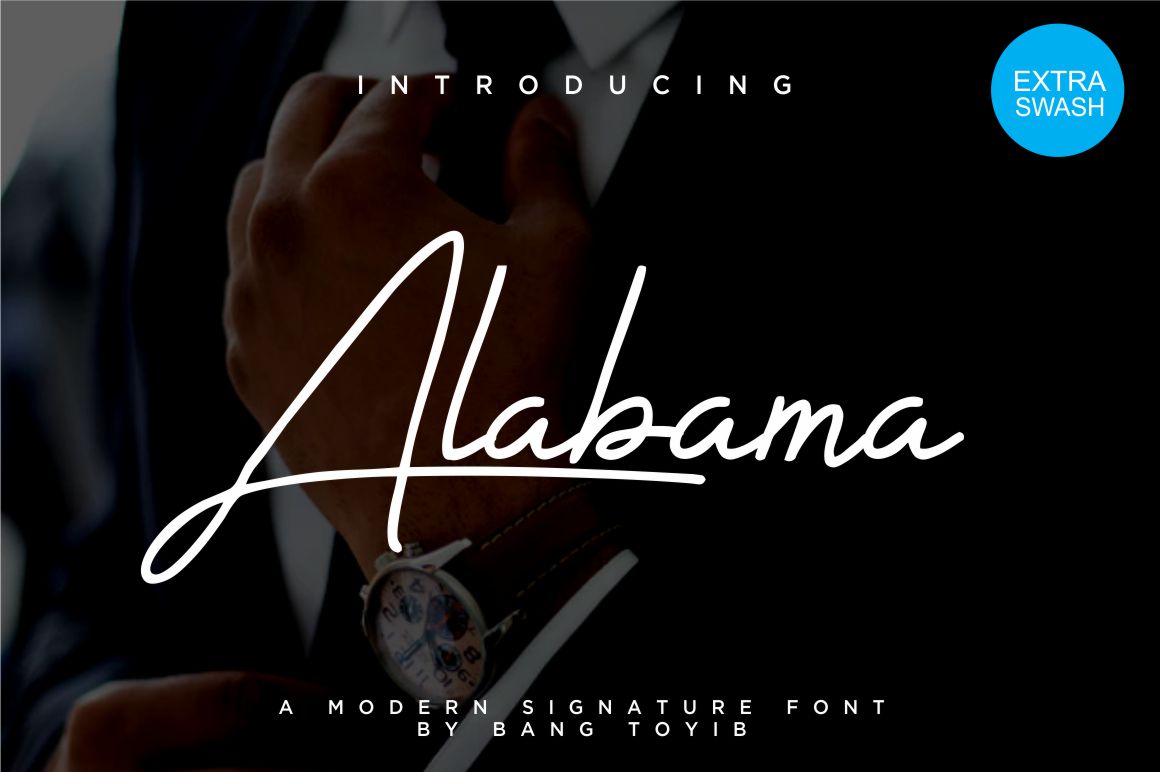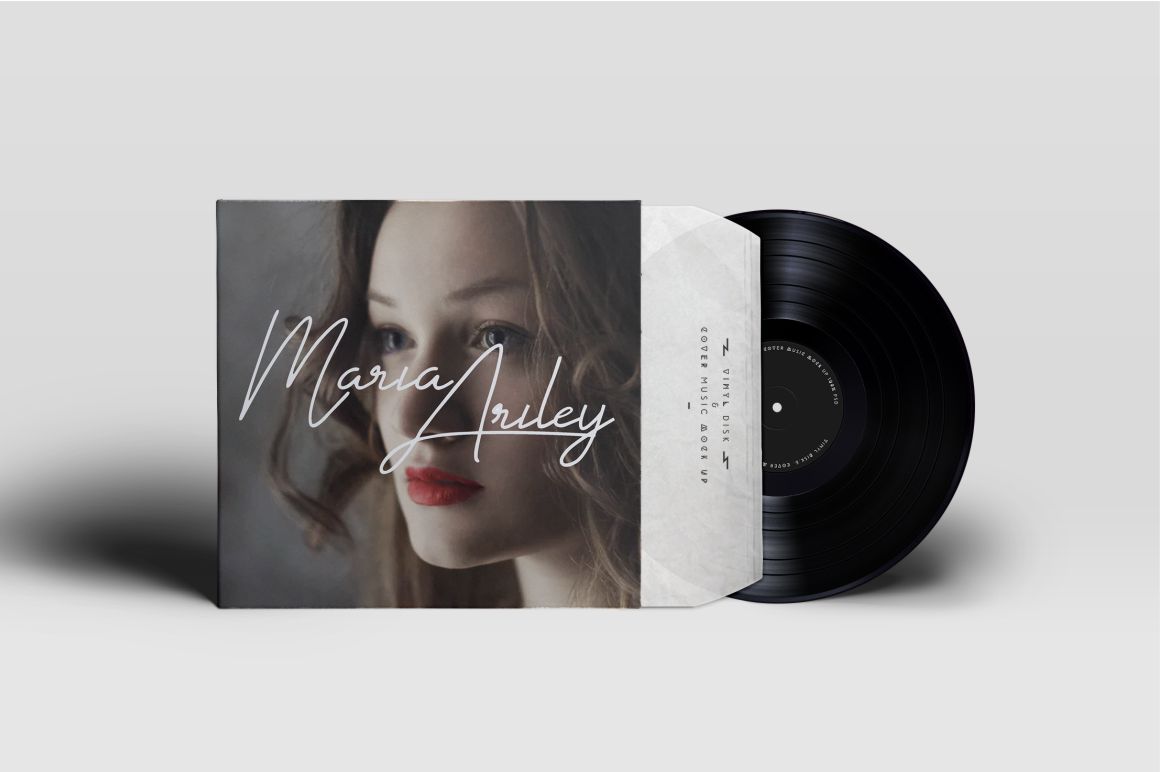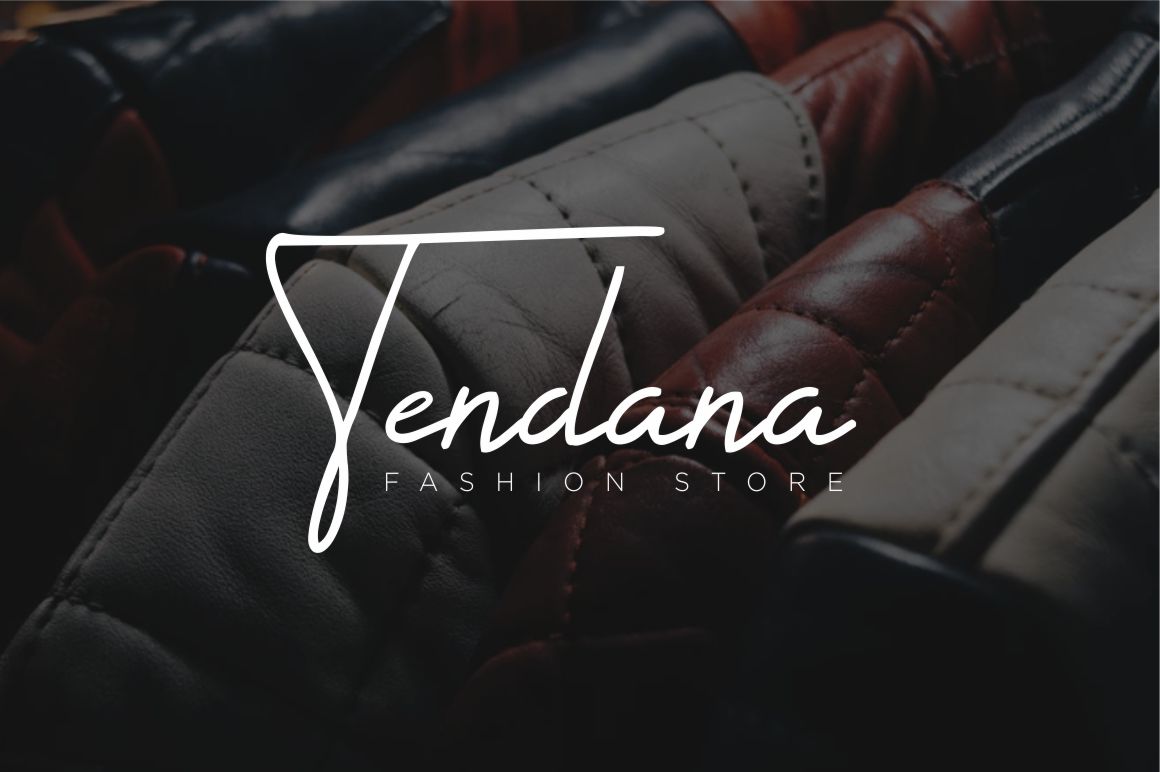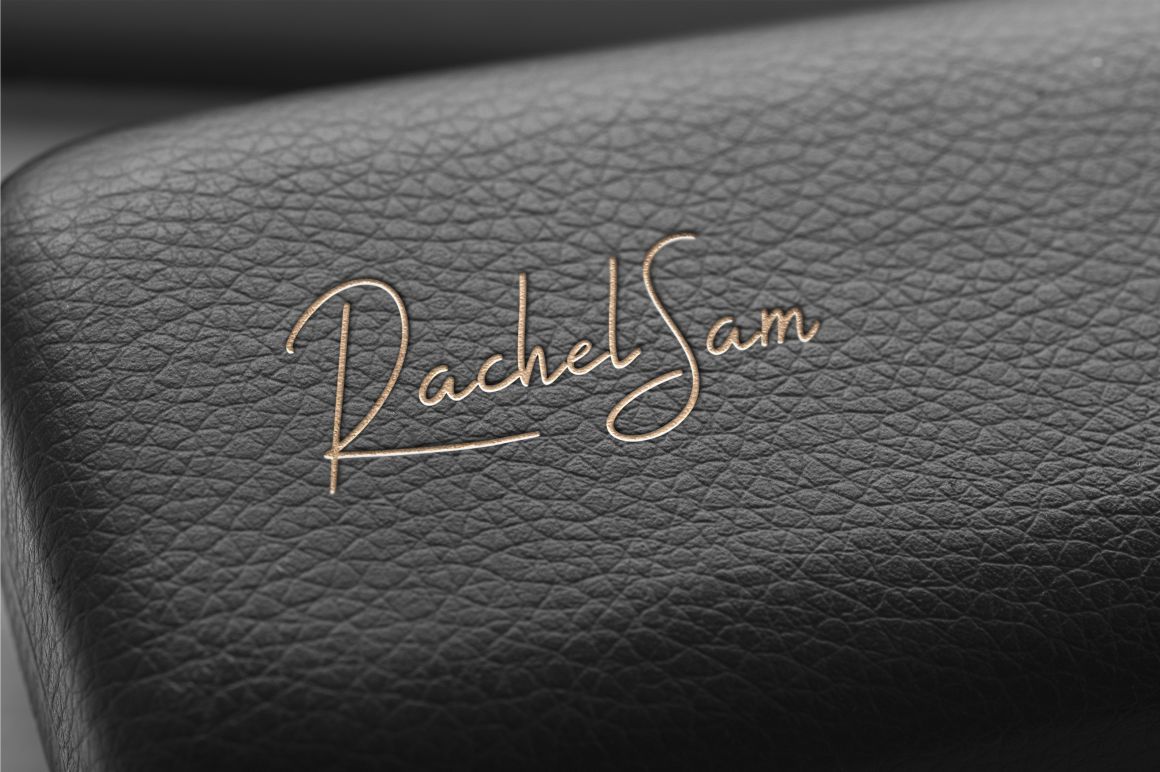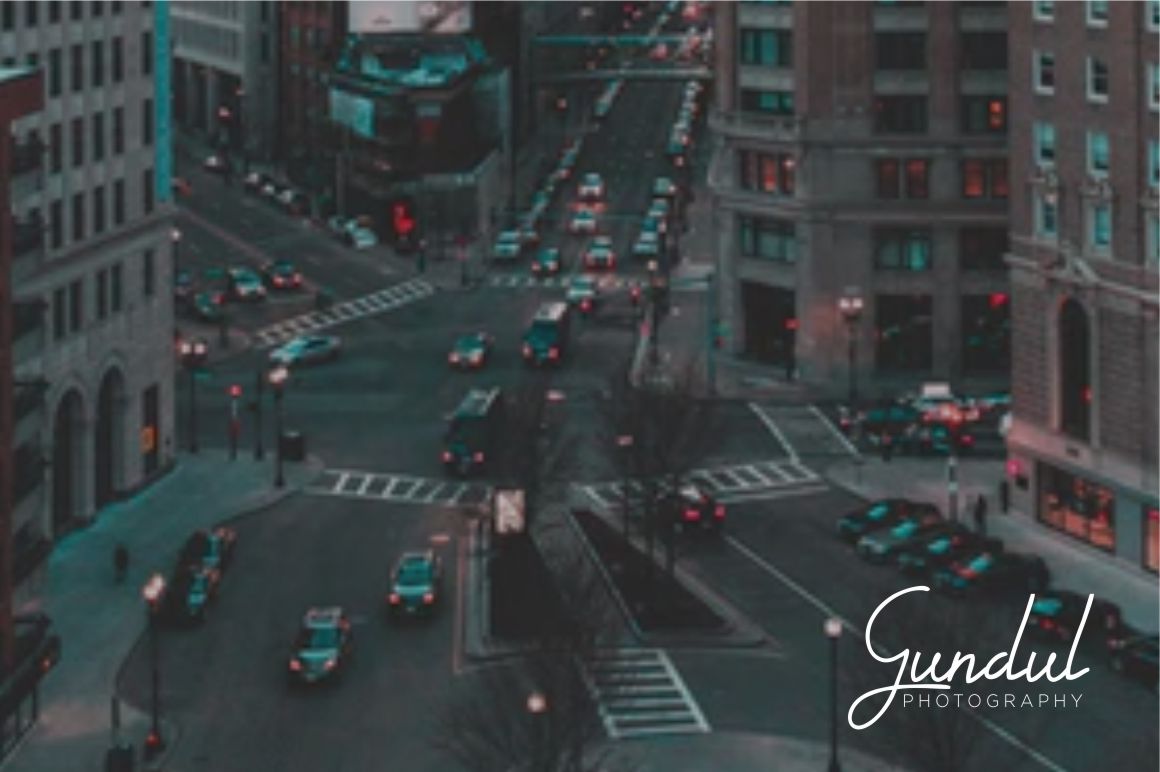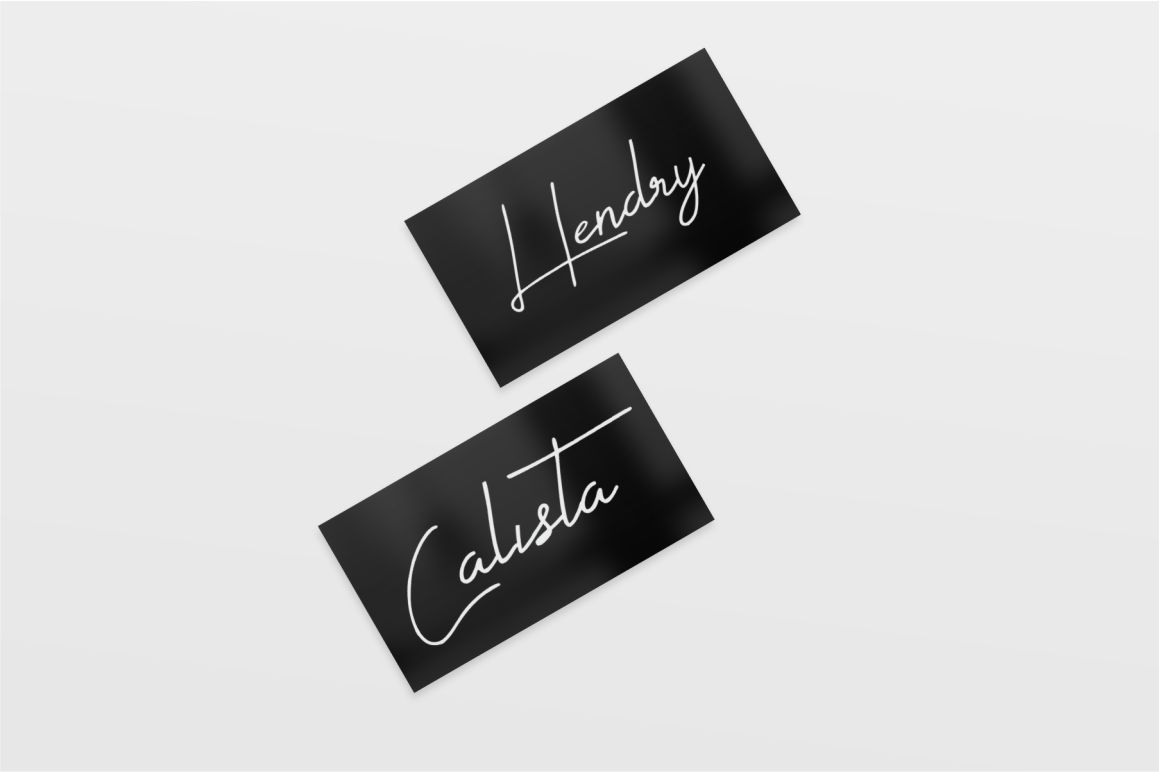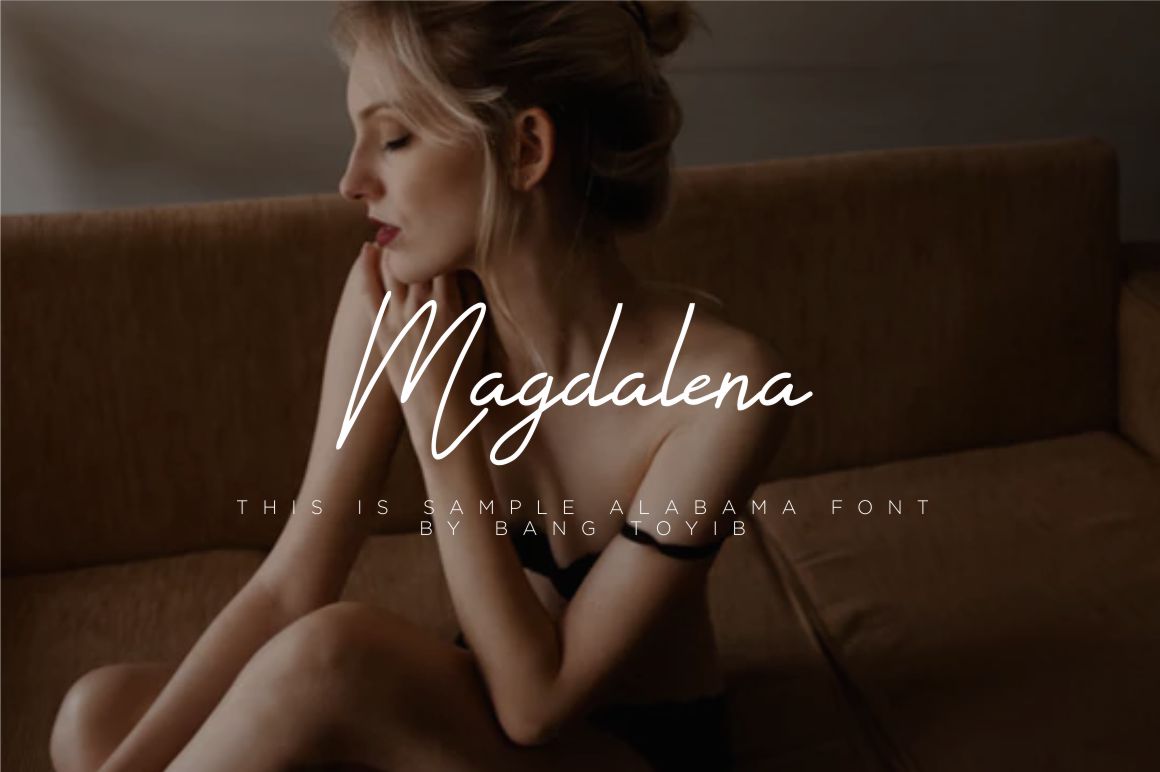
Alabama - 3 Signature Font Style
Alabama is a beautiful font, perfect for adding some romance and charm to your designs. This script functions most strongly as a display or headline font. suitable for logo, logotype, branding,wedding, fashion, label, book cover, t-shirt, instagram post, and other.
FEATURES
Basic Latin A-Z and a-z
Numbers
Symbols
Opentype
Ligature
Swash
PUA Encode AÀÁÂÃÄÅCÇDÐEÈÉÊËIÌÍÎÏNÑOØÒÓÔÕÖUÙÜÚÛß
glyphs (include Uppercase, Lowercase, Numerals & Punctuations, Stylistic Set, Ligature, Swashes)